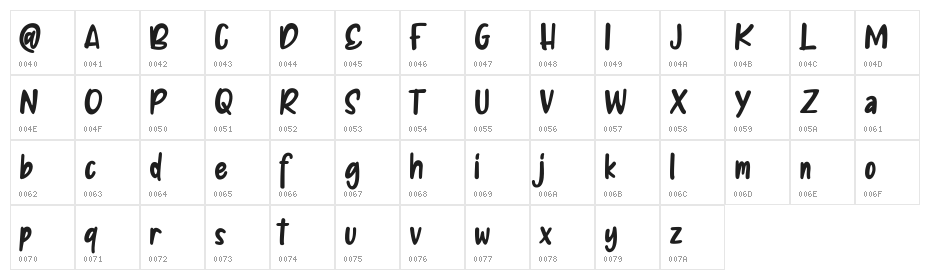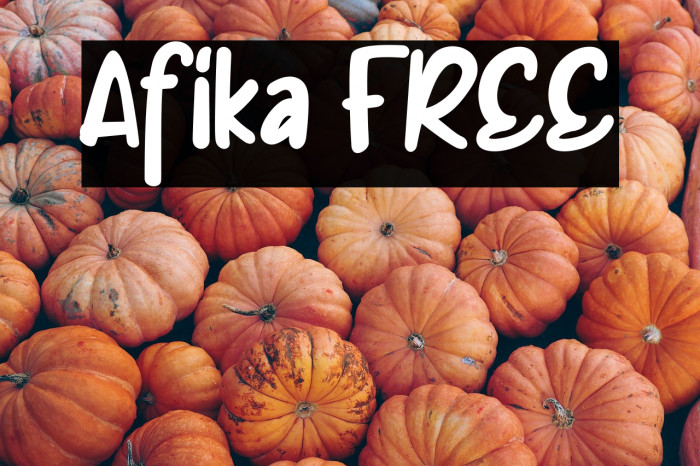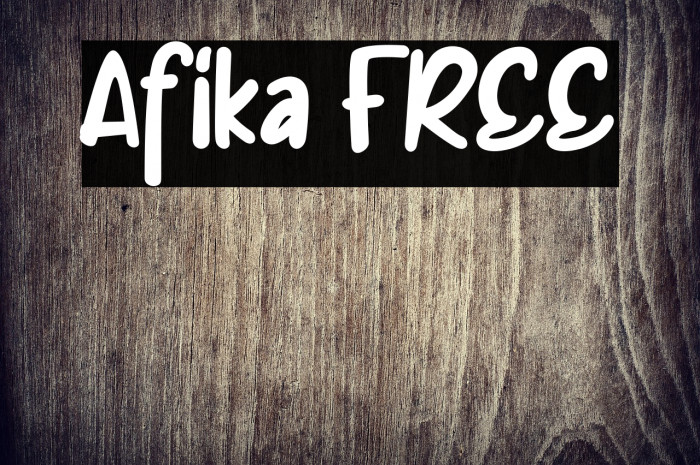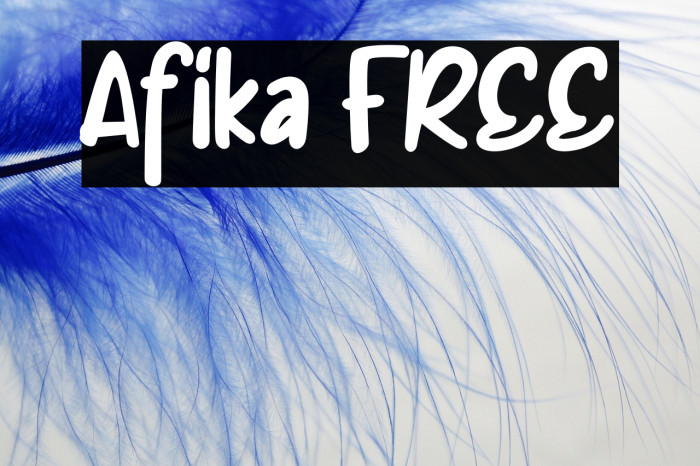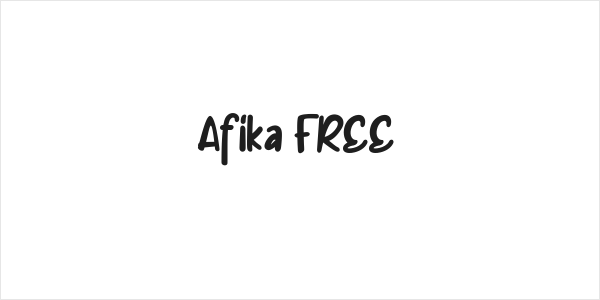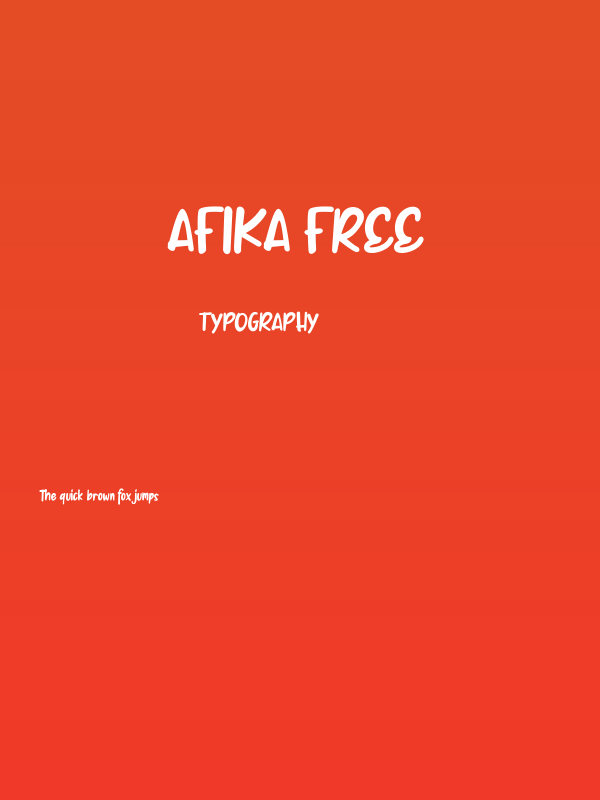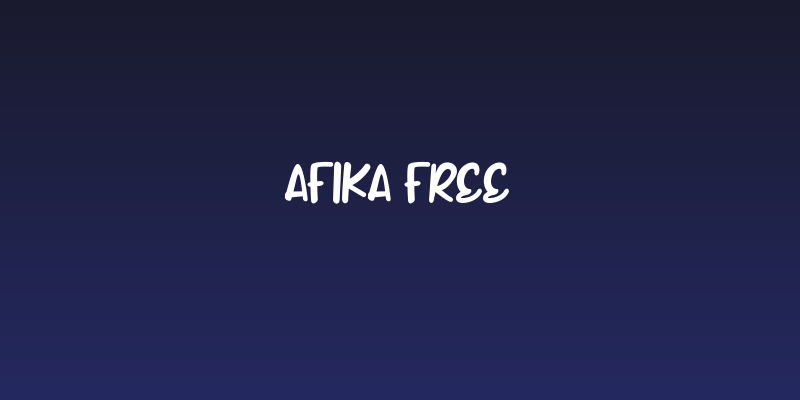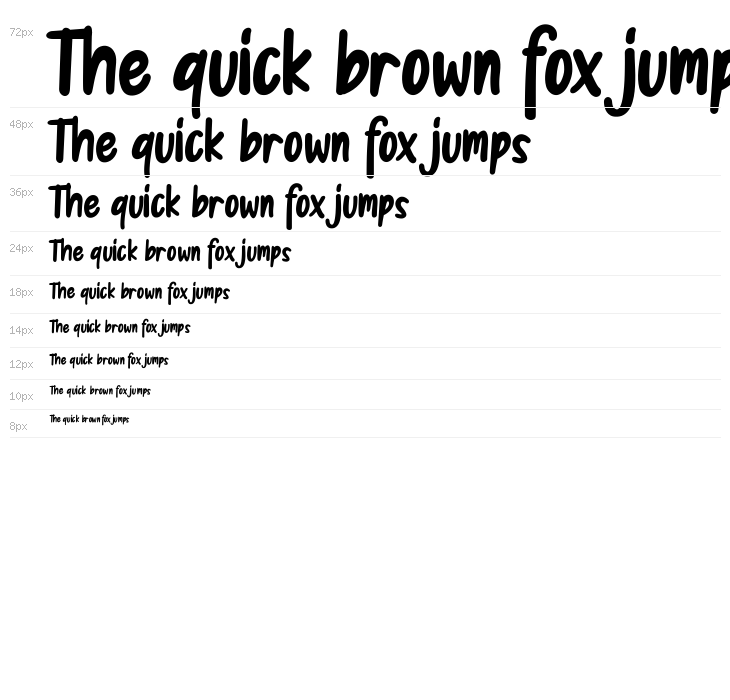
Afika FREE Font
Afika FREE Description
This playful and bold font features a handwritten style with a lively and energetic feel. The letters are rounded and slightly irregular, giving it a casual and friendly appearance. The uppercase and lowercase letters maintain a consistent style, with a noticeable bounce and flow that adds to its charm. The font's thick strokes and smooth curves make it highly legible, even at smaller sizes. It exudes a sense of fun and creativity, making it ideal for projects that require a personal touch or a sense of whimsy.
| Use Case | Headlines, Logos, Social media graphics |
| Proposed Projects | Ideal for greeting cards, children's books, playful branding, and social media graphics. |